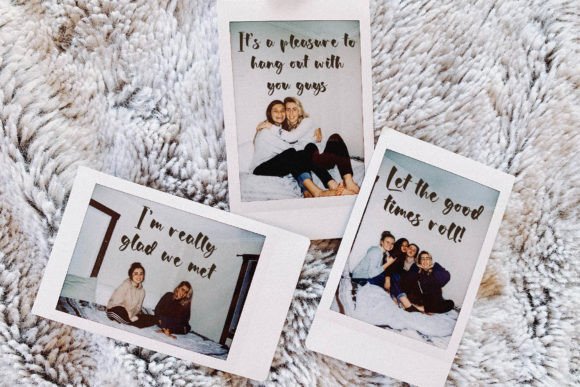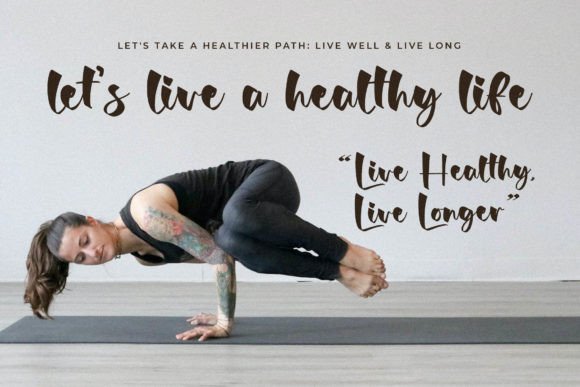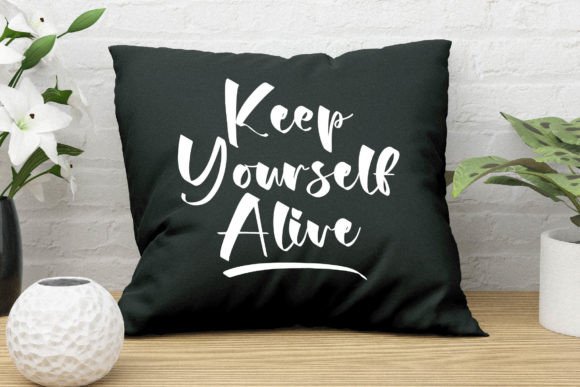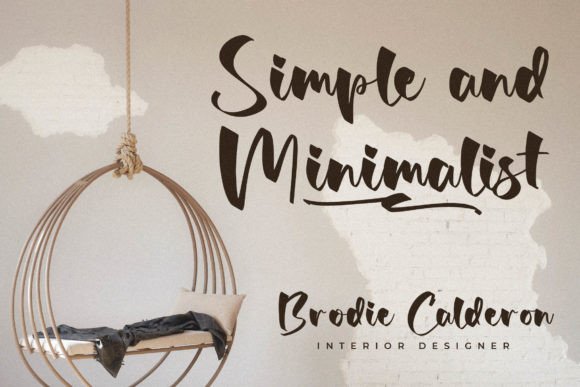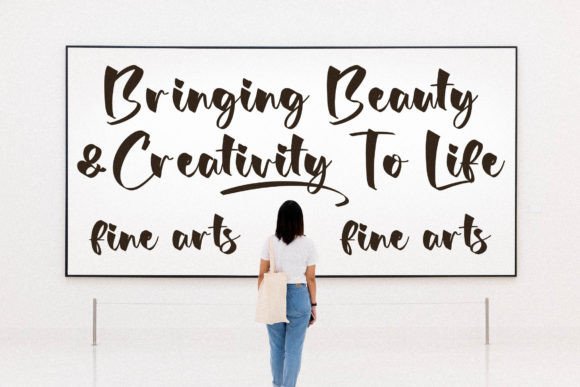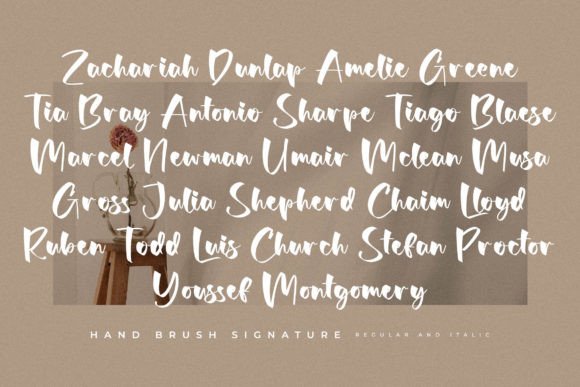
Introducing Folked Cordegall Font: The Elegant Signature Brush Font
Are you on the hunt for a font that exudes elegance and sophistication? Look no further than the Folked Cordegall Font! This stunning signature brush font is designed to add a touch of refinement to your favorite projects. With its unique and timeless style, Folked Cordegall is sure to capture your heart and inspire your creativity.
The Characteristics of Folked Cordegall Font
Folked Cordegall is a flowing script font that boasts an incredibly distinct and elegant touch. Its beautiful, hand-brushed strokes give it a sense of movement and fluidity, making it perfect for designs that require a touch of sophistication. The font’s classic and timeless style ensures that it will never go out of fashion, allowing you to use it for a wide range of projects, from modern branding to vintage-inspired crafts.
What Makes Folked Cordegall Font So Special?
So, what sets Folked Cordegall apart from other fonts? Here are just a few reasons why this font is a cut above the rest:
- Elegant and Refined: Folked Cordegall’s elegant strokes and refined lines make it perfect for designs that require a touch of sophistication.
- Unique and Distinct: The font’s unique, hand-brushed style ensures that your designs will stand out from the crowd.
- Timeless Style: Folked Cordegall’s classic style ensures that it will never go out of fashion, making it a great investment for designers and crafters.
- Versatile: This font can be used for a wide range of projects, from branding and advertising to crafting and DIY projects.
How to Use Folked Cordegall Font in Your Designs
Folked Cordegall is a versatile font that can be used in a variety of design projects. Here are just a few ideas to get you started:
- Branding and Logo Design: Use Folked Cordegall to create a sophisticated and elegant brand identity.
- Wedding and Event Planning: This font is perfect for creating beautiful wedding invitations, programs, and other event materials.
- Stationery and Paper Crafts: Add a touch of elegance to your stationery, journals, and other paper crafts with Folked Cordegall.
- Digital Design: Use this font to create stunning digital designs, such as social media graphics, blog headers, and more.
Tips and Tricks for Working with Folked Cordegall Font
Here are a few tips and tricks to help you get the most out of Folked Cordegall:
- Experiment with Different Sizes: Folked Cordegall looks great in a variety of sizes, so don’t be afraid to experiment and find the perfect size for your project.
- Pair it with Other Fonts: Try pairing Folked Cordegall with other fonts to create a unique and interesting contrast.
- Use it for Headlines and Titles: This font is perfect for headlines and titles, where its elegant style can really shine.
In conclusion, Folked Cordegall Font is a stunning signature brush font that is sure to capture your heart. With its elegant and refined style, unique and distinct characteristics, and timeless appeal, this font is perfect for designers and crafters who want to add a touch of sophistication to their projects. Whether you’re working on a branding project, creating wedding invitations, or designing digital graphics, Folked Cordegall is a great choice. So why wait? Fall in love with Folked Cordegall and start creating spectacular designs today!